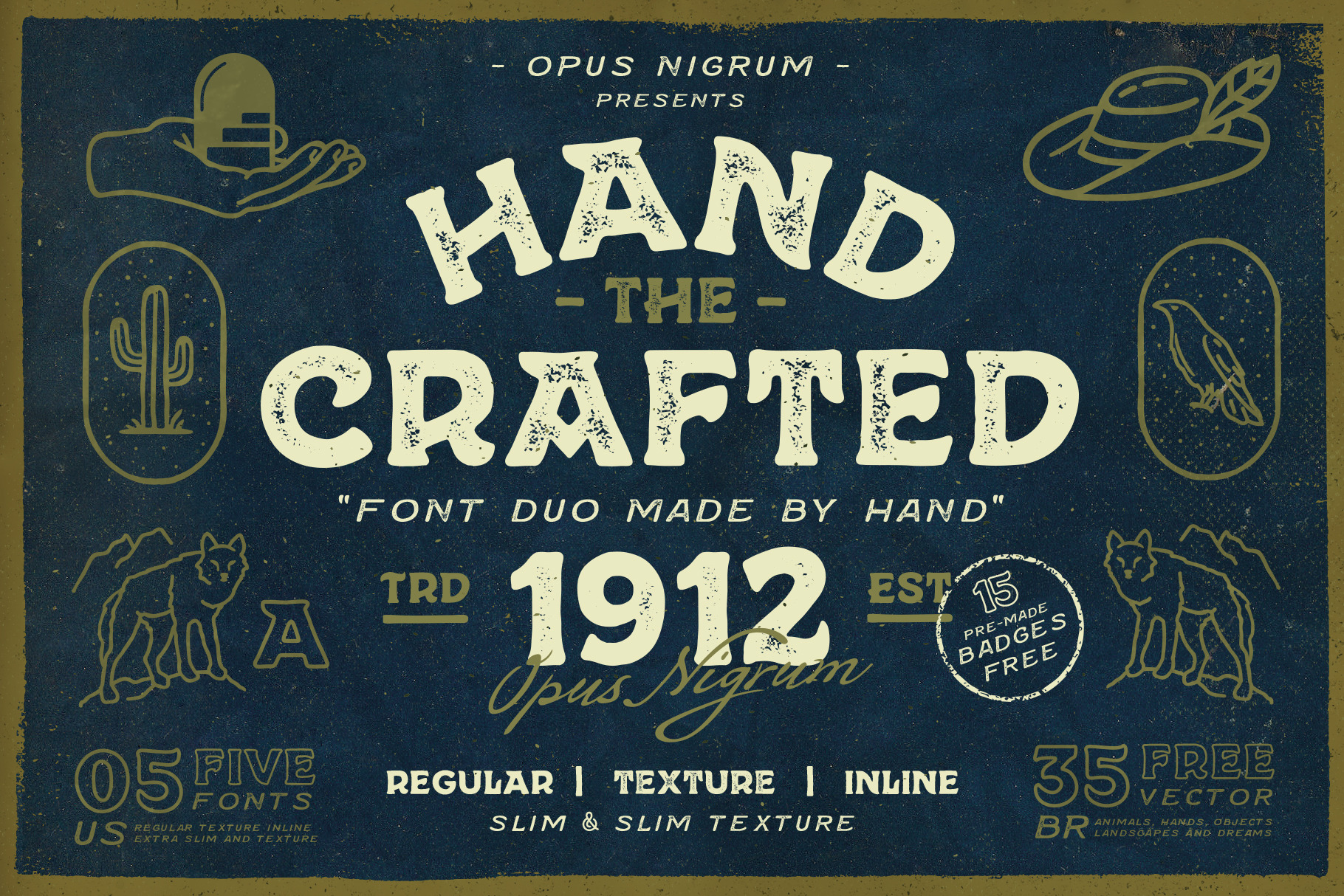
Hand Crafted Font Duo + Extras
Hand Crafted font by Opus Nigrum This font was inspired by old vintage denim labels, the old west, the mexican desert and the motorcycle art. Hand Crafted has the influence of beautiful typefaces like Regina Black, Messenger, Friz Quadrata & Cooper, but is a unique specimen and memorable. Ideal for use in logos, flyers, invitations, clothes and more.